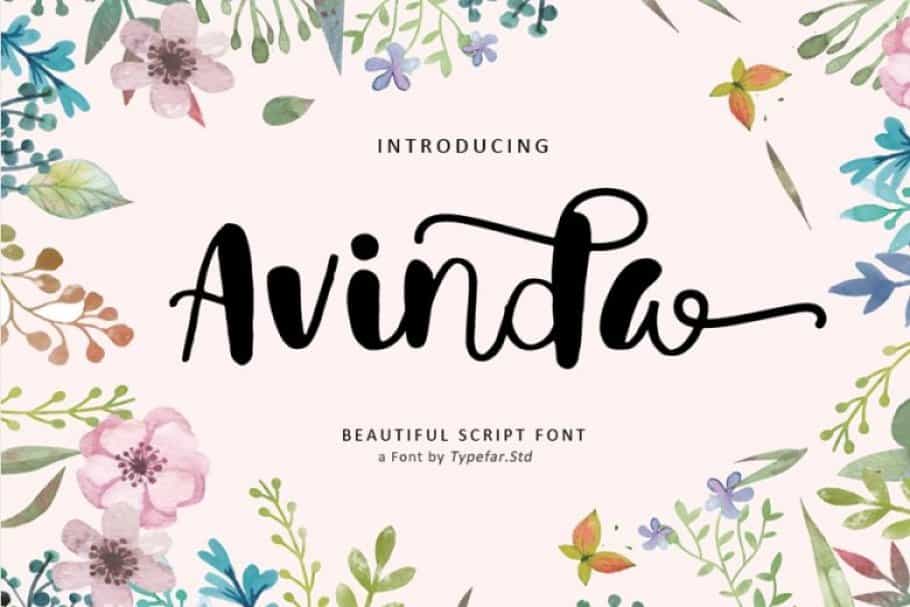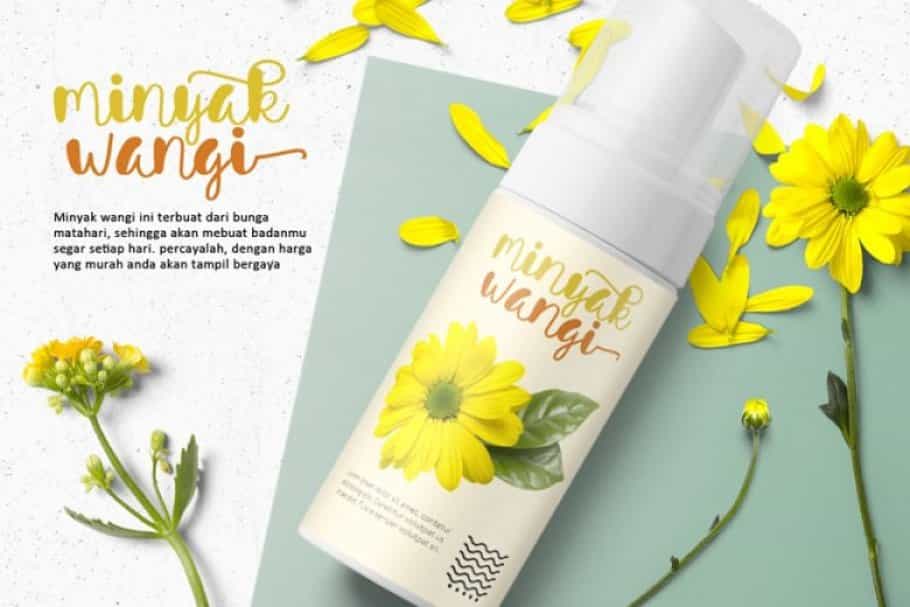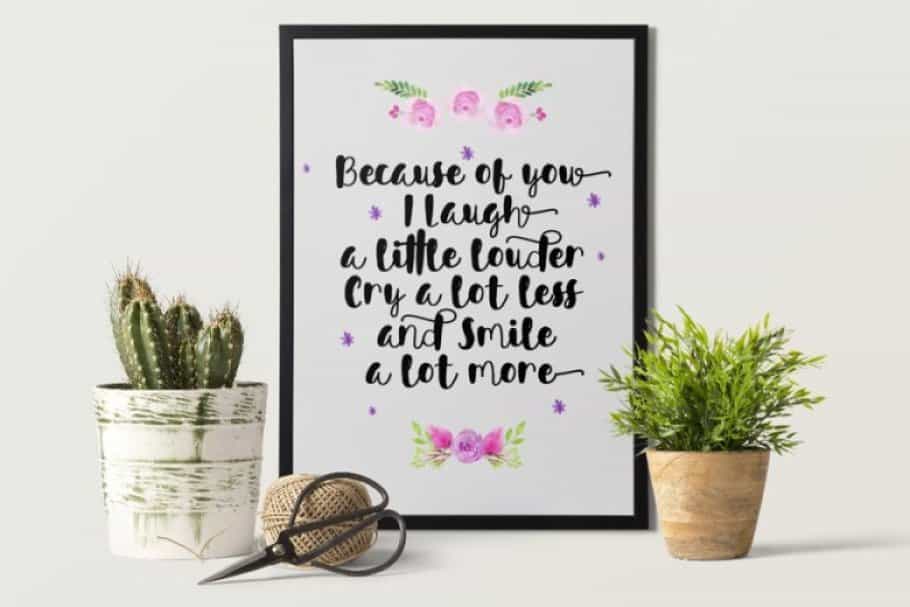
Discover Avinda Script Font, part of the Brush collection—a versatile and unique font perfect for adding a personal touch to your projects. Download it for free and enjoy crafting designs with style, from invitations to social media posts. This font is available exclusively for personal use, giving you the freedom to create without limits. Unlock your creativity with Avinda Script Font today!
Introducing Avinda Font. Avinda – This font will be perfect for any design project such as merchandise, logo, invitation, quote, social media post and magazine cover. This is the trial version. Free Avinda Typeface for personal use, please go to his store for more products and buying fonts will support him.